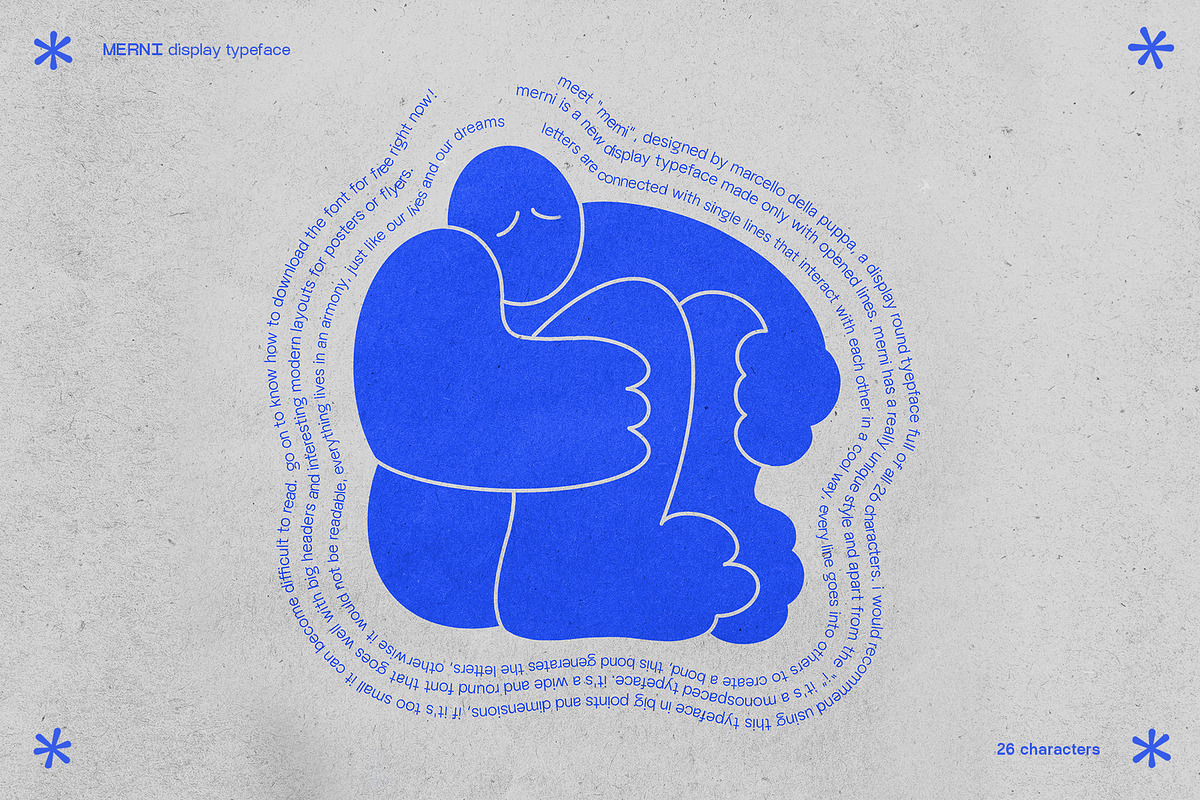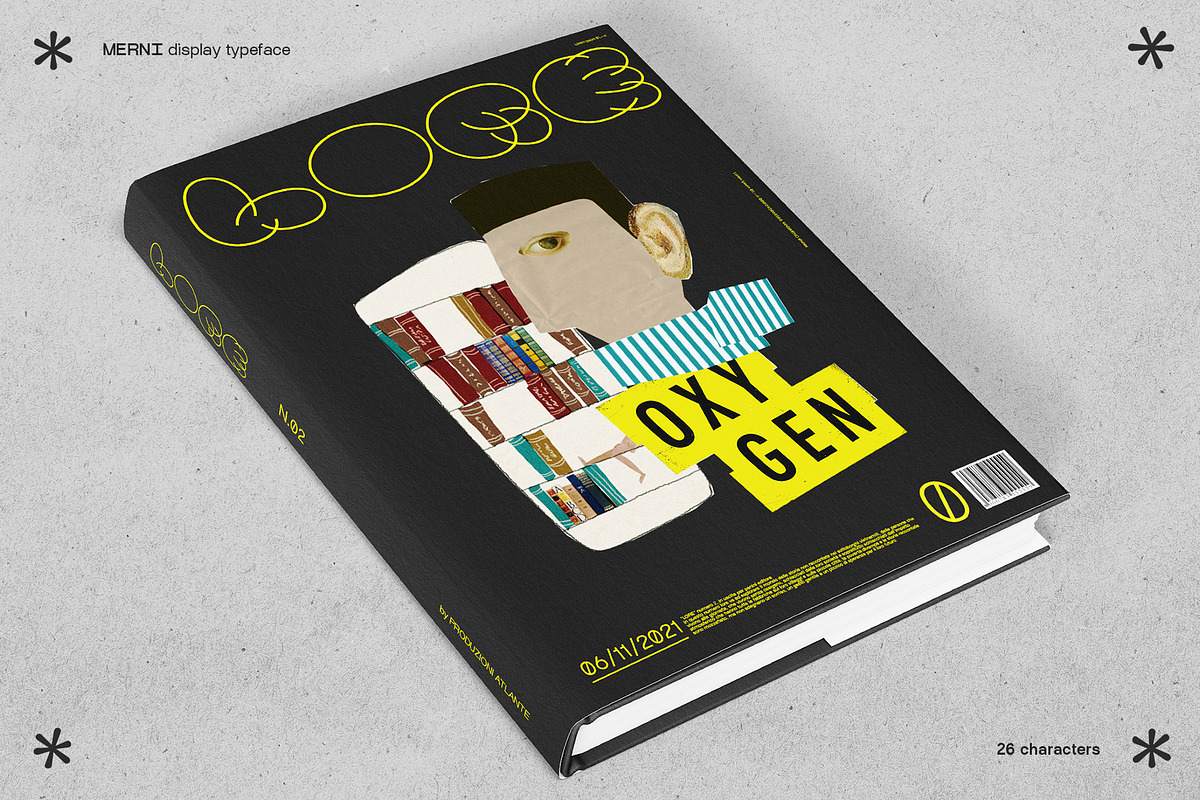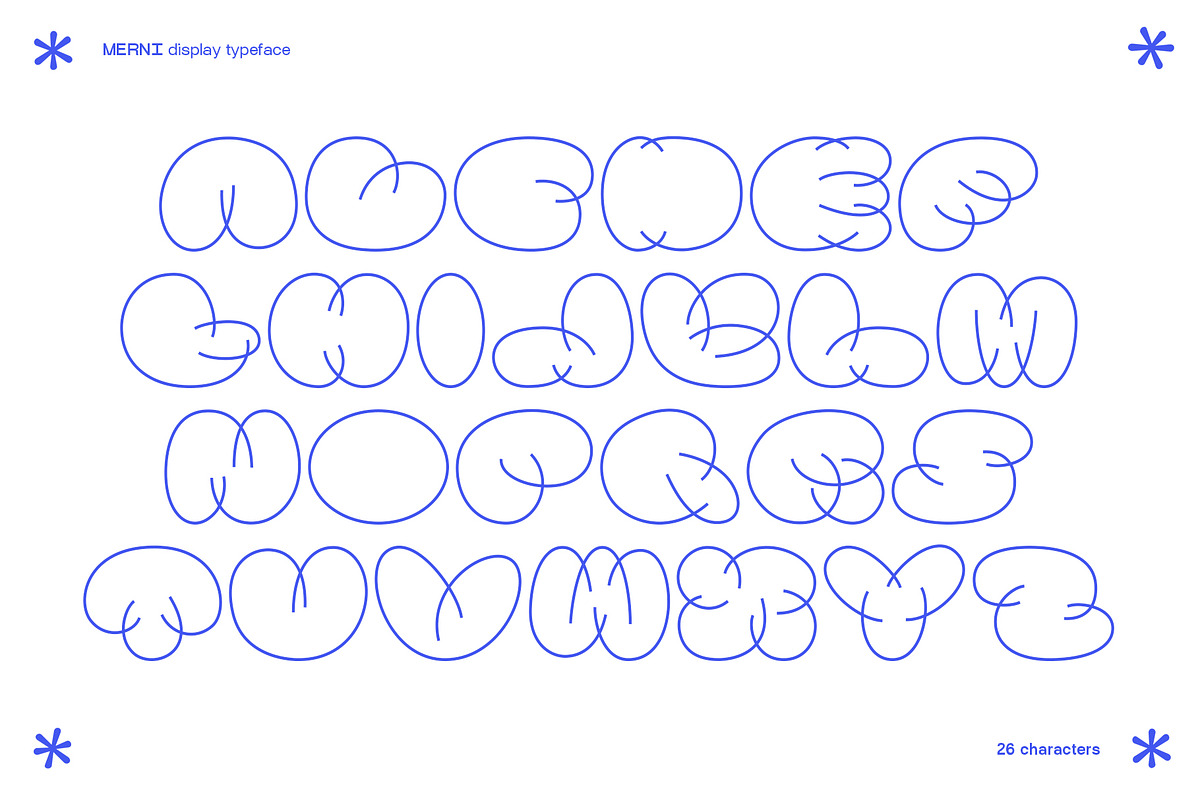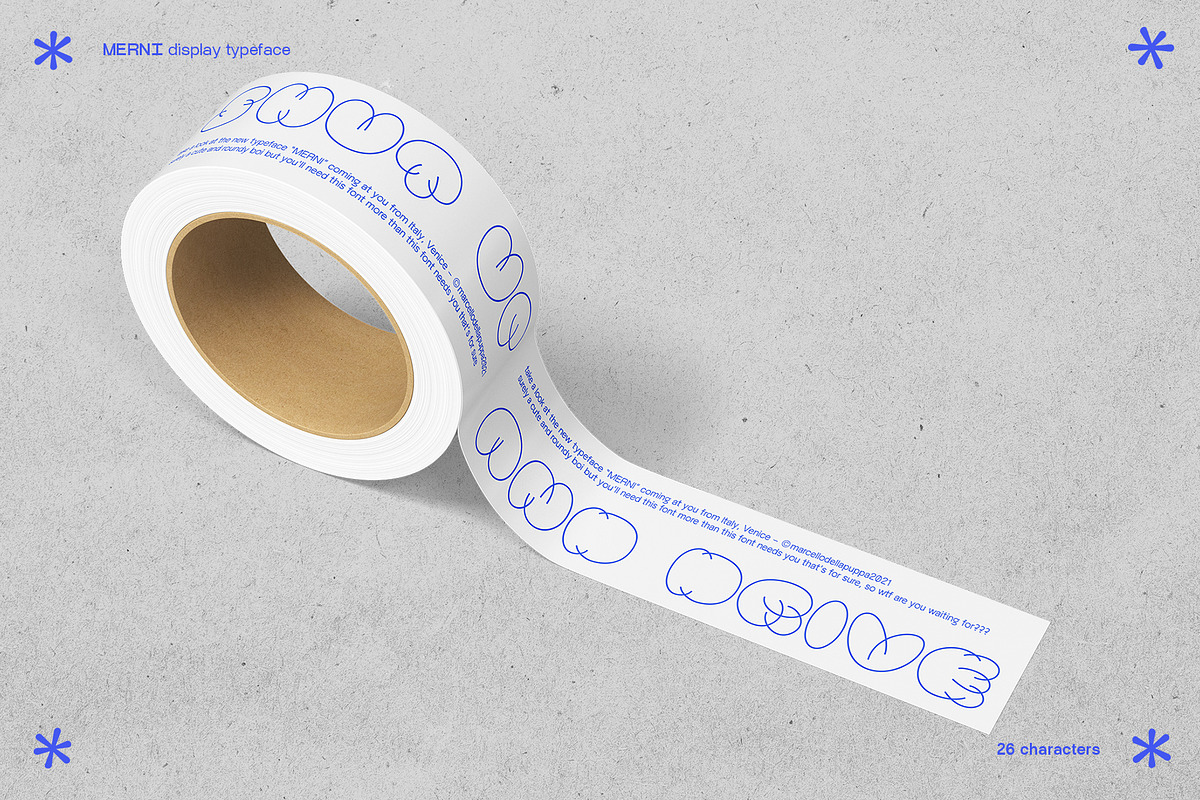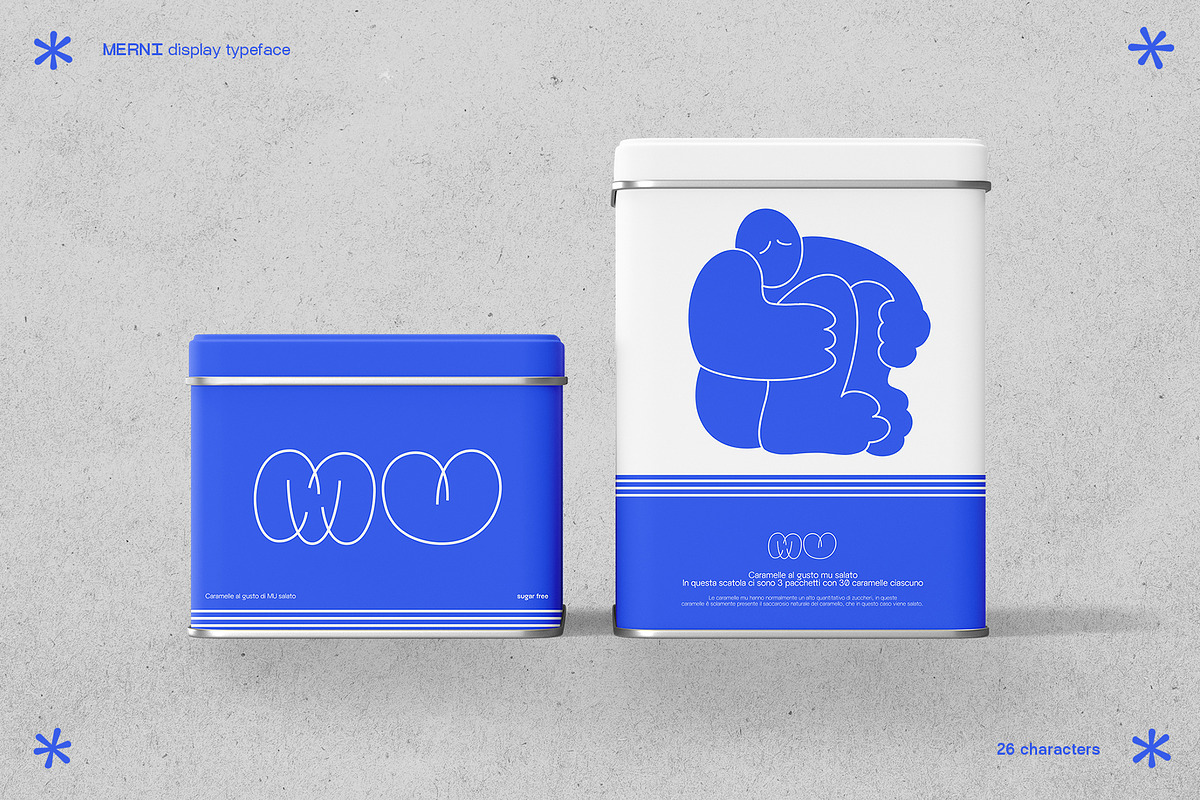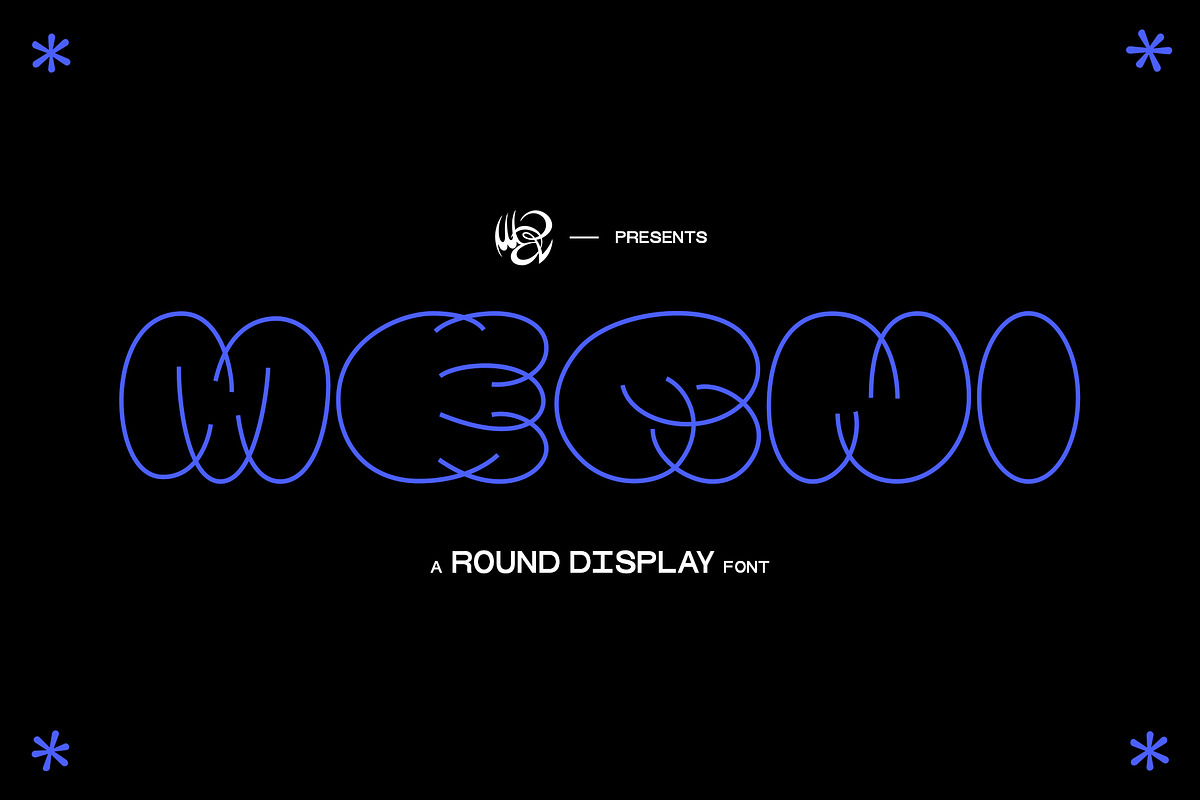
MERNI Round Display Typeface
Meet "MERNI", a new display round font full of all 26 characters. Every letter is made from lines that intersecate each other in beautiful harmony, these lines are thin but the overall feel is very bold, the idea behind the font is that every little thing, if tied with others, can make us stronger. This font works well in both big and small pts, it's perfect to create big headlines, headers, posters, merch, layouts and much more, it's really unique and it will make your design pop up!